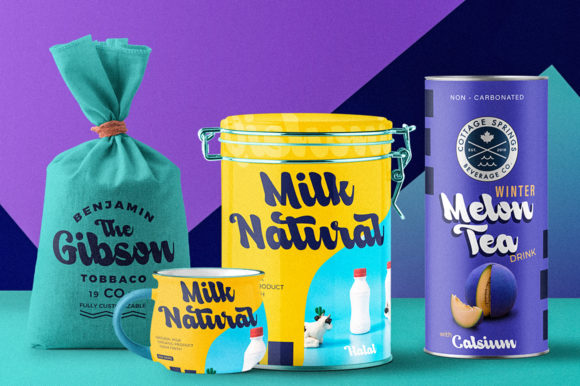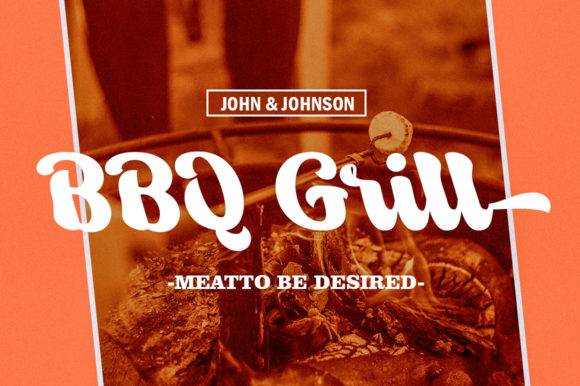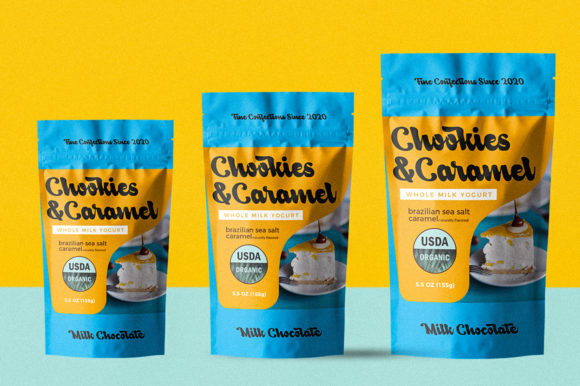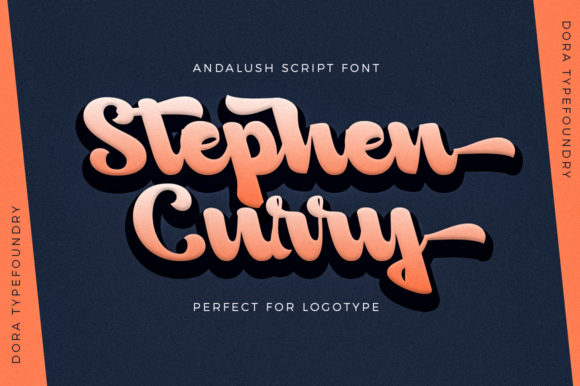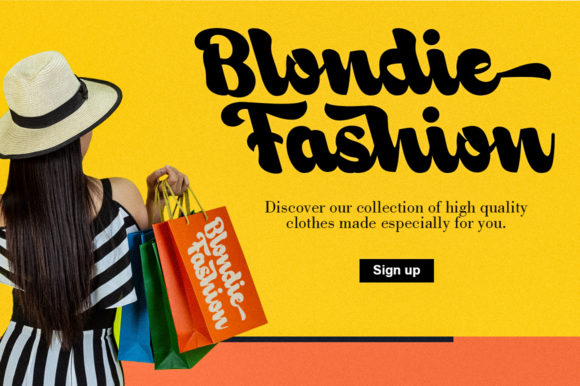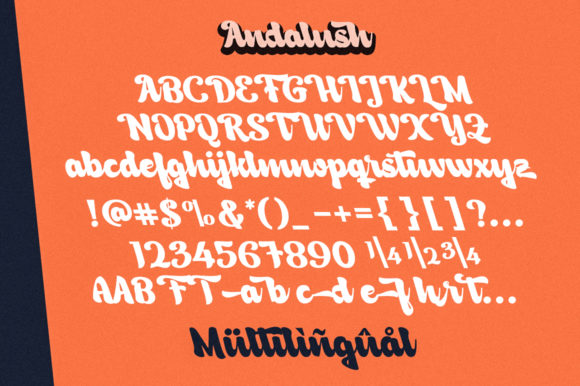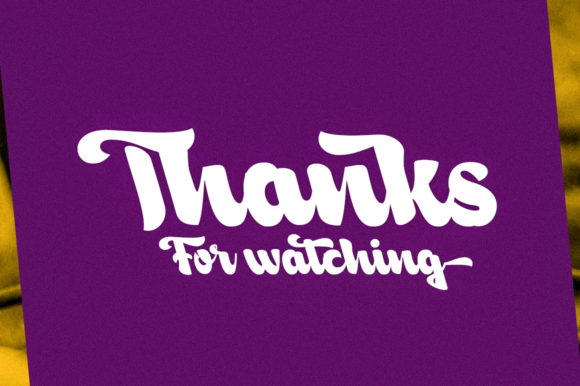
Andalush Font
About Andalush Font
Andalush is a cute and casual handwritten font with an incredibly friendly feel. Get inspired by with its gorgeous feel and use it to create gorgeous wedding invitations, beautiful stationary art, eye-catching social media posts, and cute greeting cards.